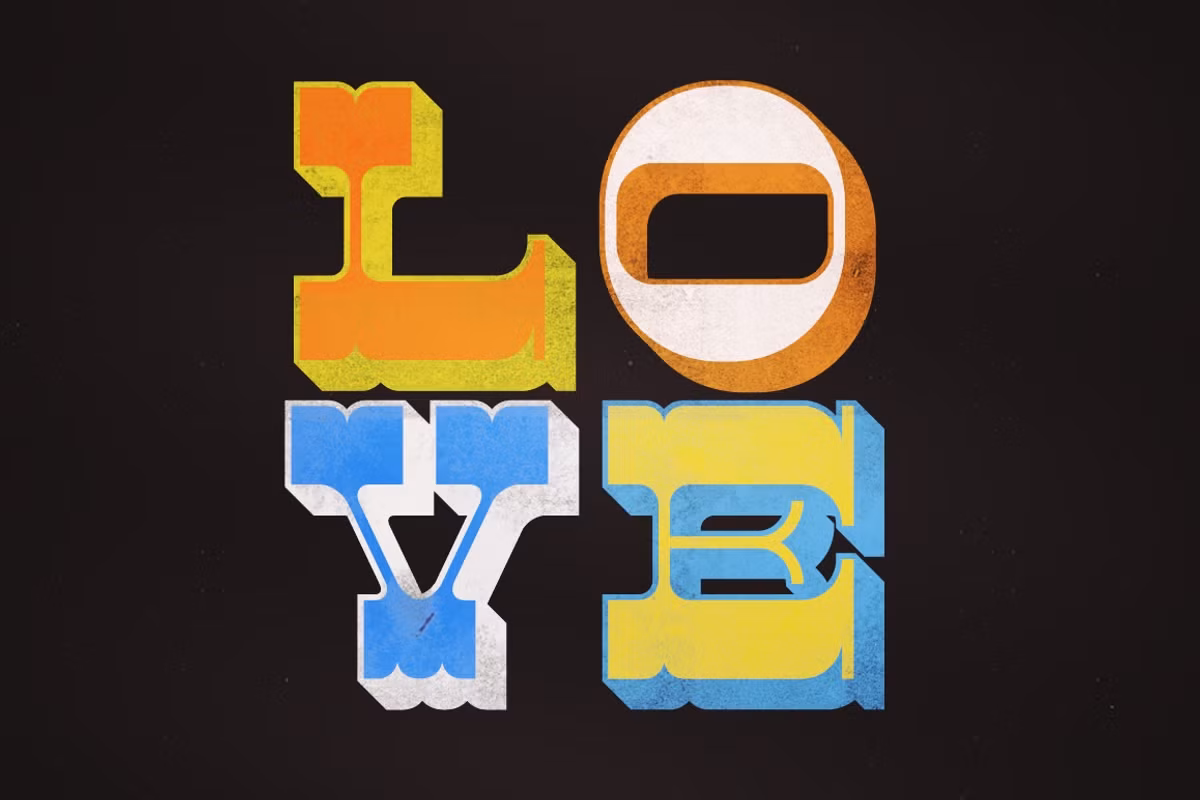
Circus Freak Font Free Download is a bold and theatrical slab serif typeface inspired by vintage circus posters and retro showbiz flair. With its thick serifs, playful curves, and eye-catching style, Circus Freak is perfect for event flyers, vintage logos, signage, t-shirts, posters, and any design that calls for a loud, fun, and nostalgic vibe.
Designed to stand out, Circus Freak Font Free Download captures the magic and drama of classic circus aesthetics. It combines a vintage Americana feel with modern design sensibilities, giving you a font that’s both timeless and trendy.
Whether you're working on a themed party invite, a retro brand identity, or an attention-grabbing headline, Circus Freak delivers impact and personality. It pairs perfectly with script or condensed sans fonts to create dynamic, layered typography.